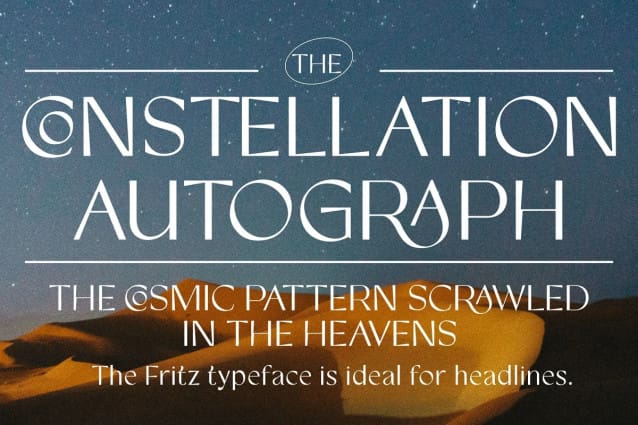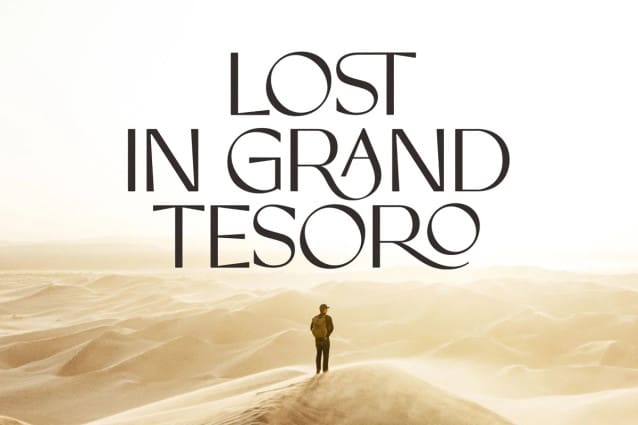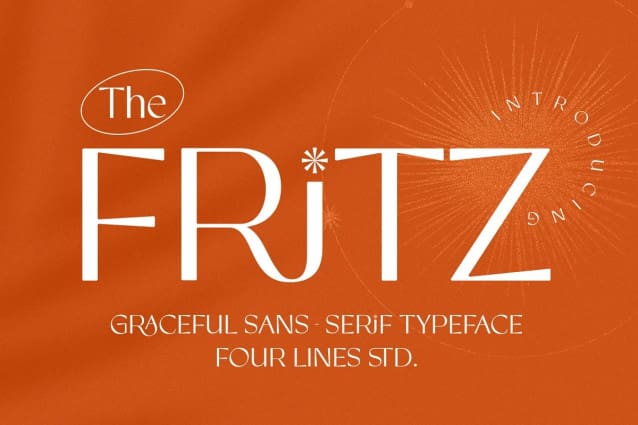
Fritz Font
Fritz Font, a unique Sans Serif font that seamlessly blends classic, vintage, and contemporary design elements, resulting in a versatile typeface suitable for a range of design purposes. Its adaptability makes it an excellent choice for posters, social media, web design, invitations, crafts, and beyond.